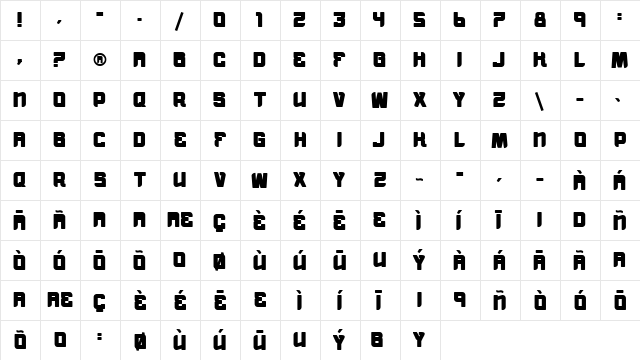
vtks morning rain BOLD Regular
| Foundry | douglas vitkauskas |
| Designer | DOUGLAS VITKAUSKAS |
Design Context for vtks morning rain BOLD Typeface
vtks morning rain BOLD is a composed and adaptable typeface that performs quietly and consistently across a wide range of design contexts. The heavy weight commands attention and anchors typographic hierarchies.